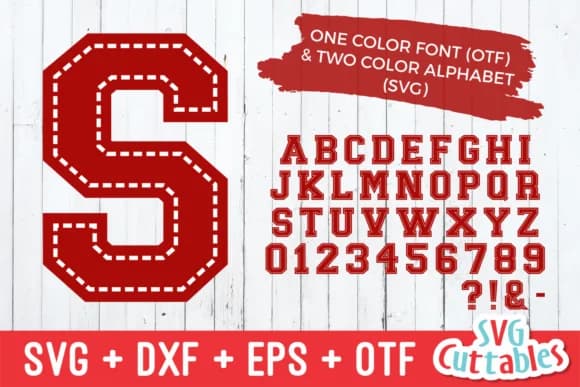
1 / 5About JP Sport Jersey Font
Picture yourself designing custom varsity letters or assembling graphics for a college apparel project. JP Sport Jersey, created by SVG Cuttables, is a chunky slab serif built for that bold, athletic look that catches attention on field and sideline alike. The font's outlined construction makes it ideal for vector cutting, which opens up real possibilities for heat transfer jersey numbering, layered athletic decals, and custom team merchandise labels that demand visual impact and durability.
When you need that nostalgic college sports aesthetic for your projects, JP Sport Jersey delivers the goods. It works beautifully for varsity letter projects, custom athletic event posters, boutique sports merchandise packaging, and DIY sports-themed gift concepts for athletes and fans alike. Slab serif letterforms stay clear and punchy even when printed large for stadium signage or banner work, ensuring readability holds strong no matter the viewing distance. The outlined construction means you can layer colors and textures into your designs, adjust the stroke weight as needed for visual impact, or keep it clean and bold depending on your creative vision.
- Sturdy, Confident, Sport Font
JP Sport Jersey Font is a slab serif font that shines as a display or heading face. Pair it with a clean sans-serif or serif font for body text β the contrast creates a clear hierarchy while the two styles stay balanced and easy to read.
JP Sport Jersey Font